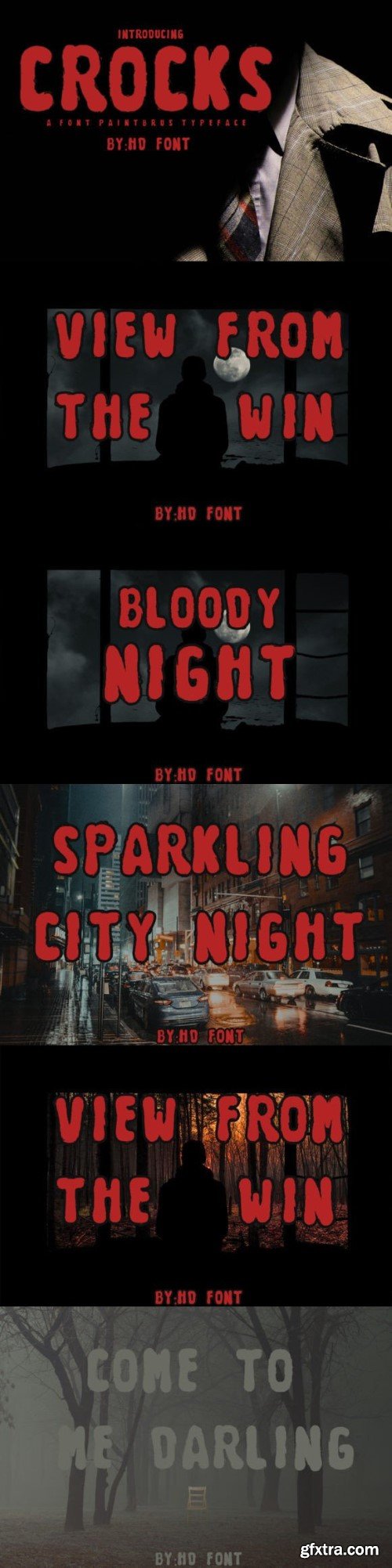
克罗斯字体
Crocks comes from its predecessor, this time we give a touch of brush to it, and this font design will look very awesome, has a childish feel, but can be used as a youth title, printed invitations and books, this film title will be very charming, bold and simple dirty, in it, this font design will add a very convincing look to your large design